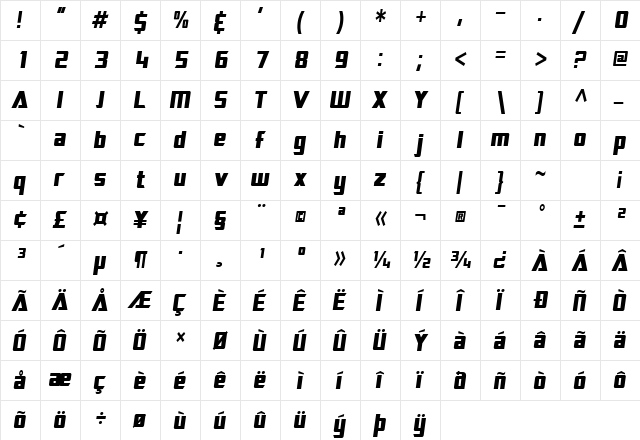
SF TransRobotics Condensed Oblique Font Preview
| Foundry | ShyFoundry |
| Designer | Derek Vogelpohl |
Design Context for SF TransRobotics Condensed Typeface
SF TransRobotics Condensed takes a measured approach to typography — its balanced proportions and neutral character make it a reliable workhorse for both digital and print work. The dynamic lean of this cut emphasises speed and emphasis in any layout. Its narrow stance lets it pack a punch even in space-constrained designs.
Pro Tip: Try SF TransRobotics Condensed for annotation and caption copy alongside an upright companion — the contrast in angle creates a dynamic but ordered typographic system.